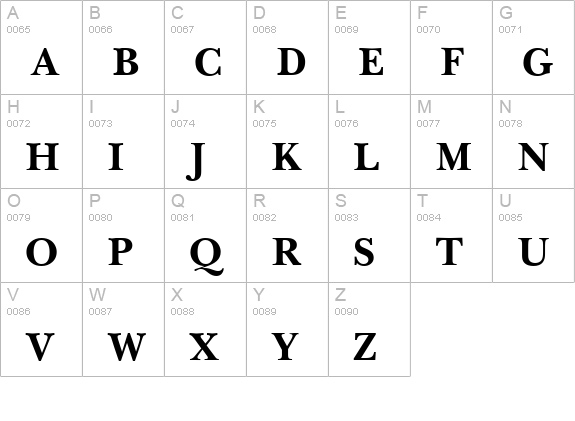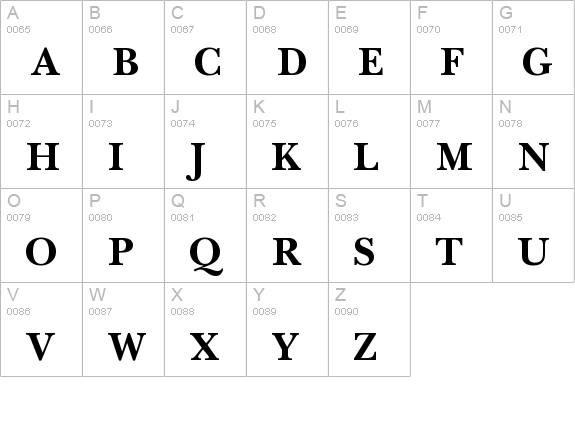
QTBasker Bold Font Details
QTBasker Bold is a strong, high-contrast variant in the QTBasker typeface family \xE2\x80\x94 well suited to headlines, attention-grabbing titles, and strong calls-to-action.
Introducing QTBasker Bold font, a stunning display typeface designed to make your designs stand out from the crowd. With its bold and confident letterforms, QTBasker Bold exudes a sense of strength and power, making it perfect for headlines, posters, logos, and more. The unique and eye-catching design of QTBasker Bold adds a touch of modernity and sophistication to any project. Its distinct letterforms combine sharp angles with smooth curves, resulting in a harmonious balance between edginess and elegance. But what truly sets QTBasker Bold apart is that it is not only visually striking, but also freely available to download at FontsMarket.com. Yes, you read that right – this high-quality font can be yours without any cost. Whether you are a professional designer looking to add a powerful tool to your creative arsenal or a hobbyist seeking to enhance your personal projects, QTBasker Bold offers an incredible value that you won't find elsewhere. So why wait? Download QTBasker Bold today and unleash your creativity. Whether you're crafting a bold advertising campaign, designing a captivating book cover, or simply looking to add a touch of flair to your social media posts, QTBasker Bold is the perfect choice. With its versatility and stunning appeal, this font is sure to make a lasting impression on your audience. Don't miss out on this amazing opportunity to elevate your designs with QTBasker Bold – the font that combines boldness, elegance, and the freedom to create without constraints.